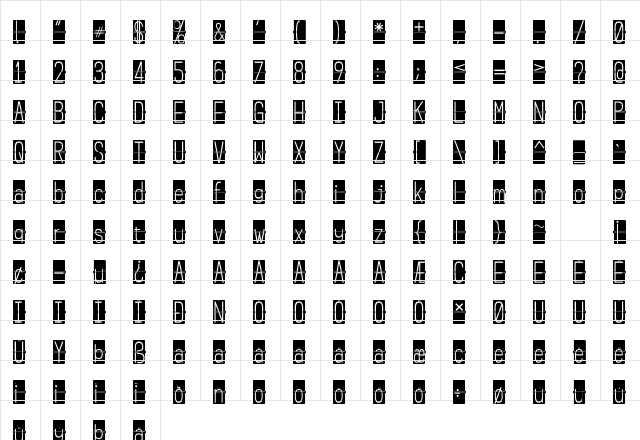
FLIPclockBlack Regular Font Preview
FLIPclockBlack Regular
FLIPclockBlack Regular Font Details
Design Context for FLIPclockBlack Typeface
FLIPclockBlack offers clean, dependable letterforms without strong stylistic allegiance, making it a practical choice for designers who need flexibility.